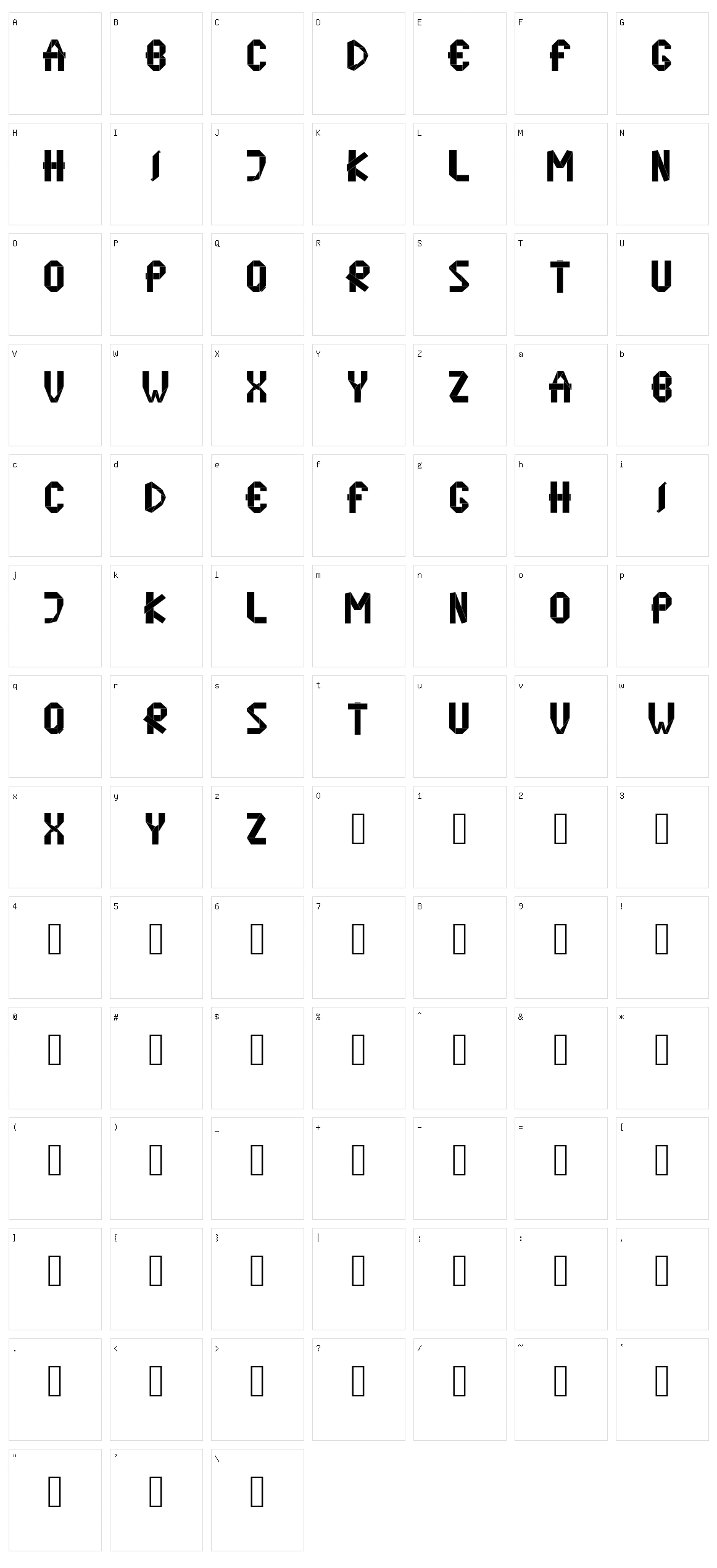
The free font Origame is carefully designed by Aboe Zart Studio, showcasing a thoughtful balance of creativity and usability and falls under the Decorative font style. When you download the ZIP file, it contains only 9.27 KB of font files, making it lightweight and quick to download. Please review the license details below to understand permitted usage and distribution rights. If license information is not available, we recommend using this font for personal projects only or contacting the author directly for commercial usage permissions.